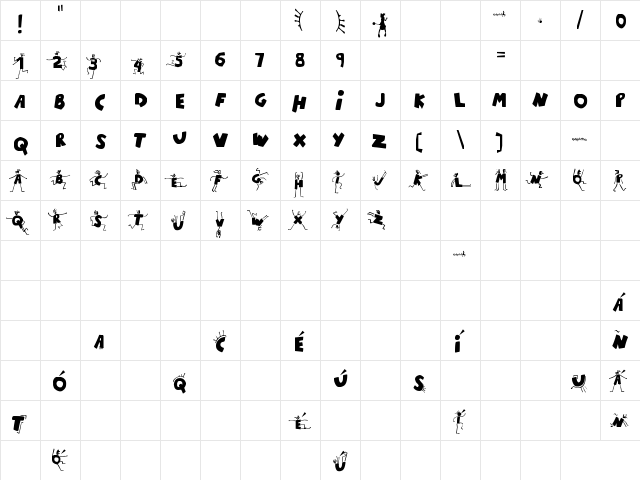
ChiquiFont Regular
Design Context for ChiquiFont Typeface
ChiquiFont is a composed and adaptable typeface that performs quietly and consistently across a wide range of design contexts.